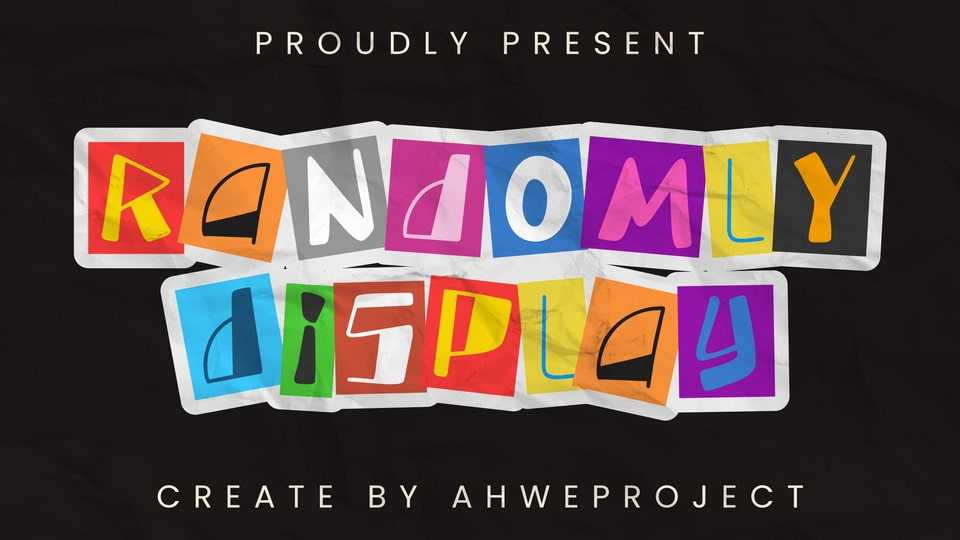
Download Randomly font, a brilliantly designed display typeface that dares to be different. With each letter boasting an array of sizes defying standard size rules, Randomly is far from ordinary.